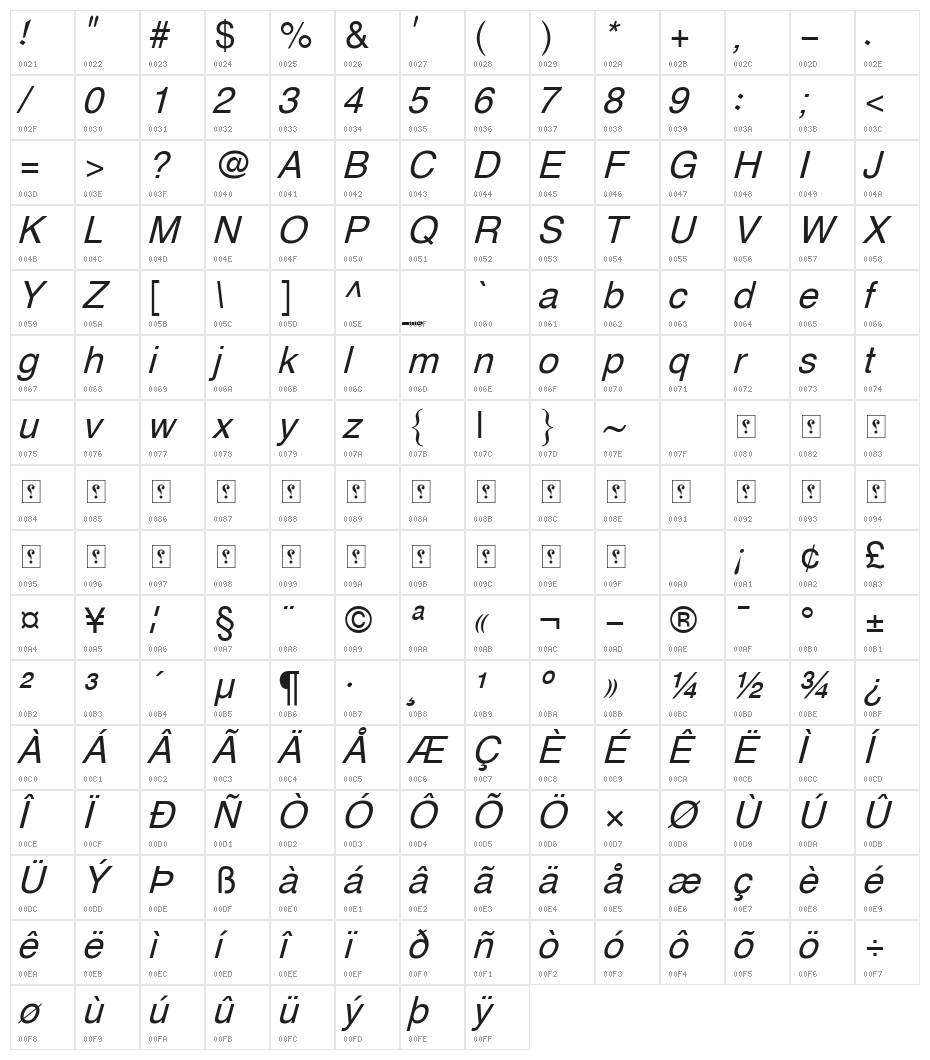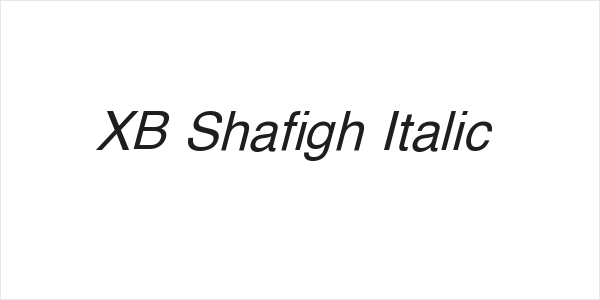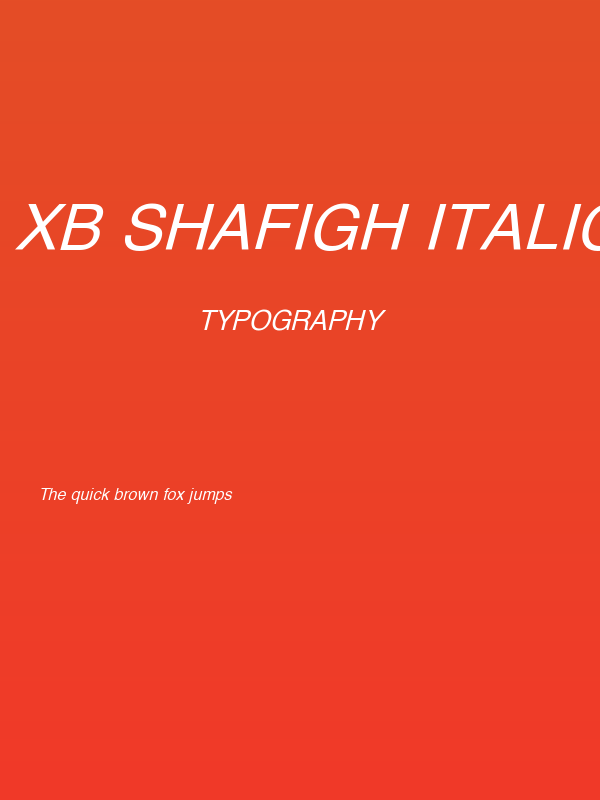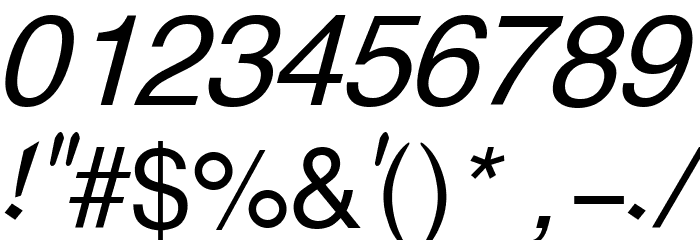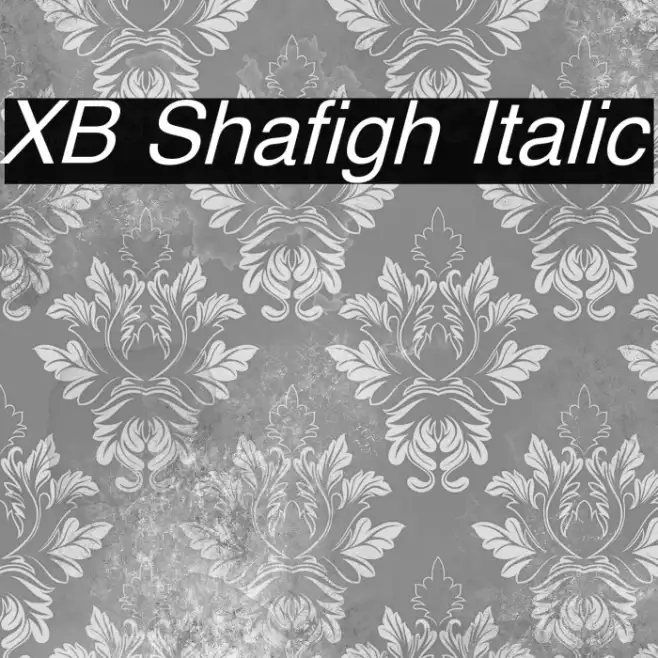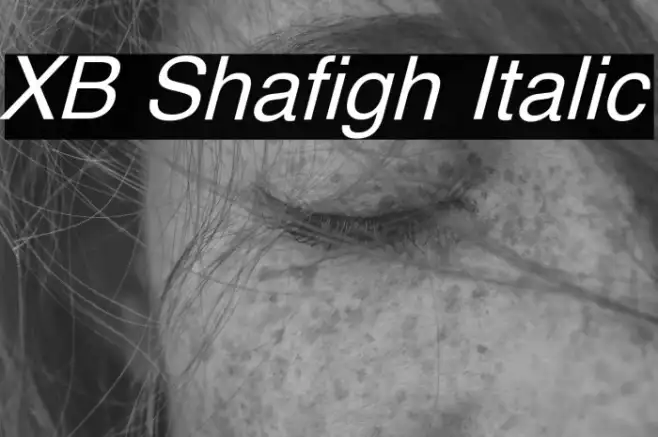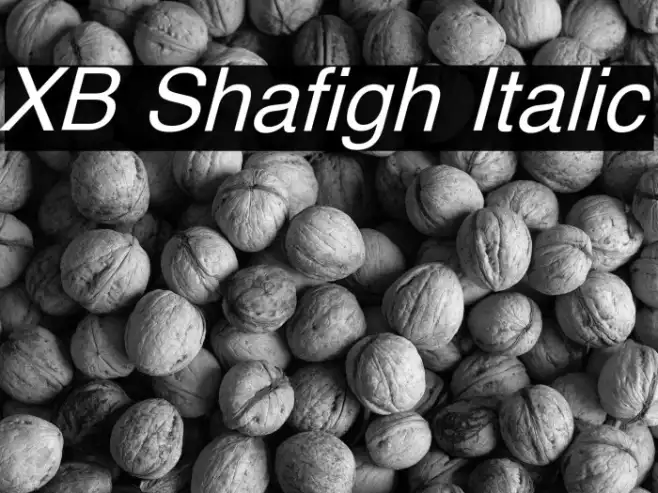
XB Shafigh Italic Font
XB Shafigh Italic Description
This font features a sleek and modern italic style with a clean and streamlined appearance. The characters are slightly slanted, giving a sense of motion and elegance. It maintains a consistent stroke width throughout, contributing to its uniform look. The uppercase and lowercase letters are well-proportioned, and the numerals are clear and easy to read. Special characters are distinct and harmonize well with the overall design. This font is versatile, suitable for both digital and print media, offering a professional yet approachable aesthetic.
| Use Case | Headlines, Body text, Logos |
| Proposed Projects | Ideal for branding, advertising, and editorial design projects where a modern and professional look is desired. |